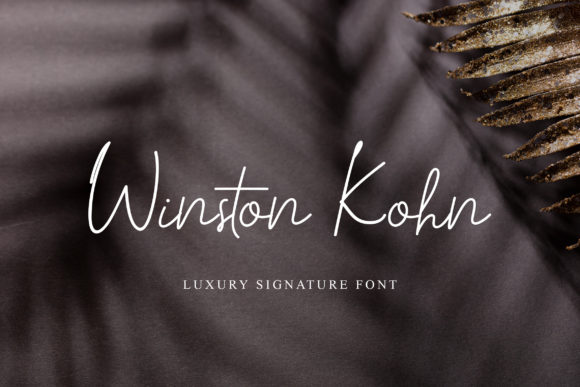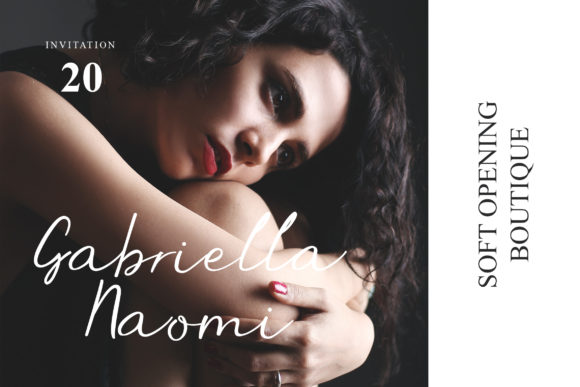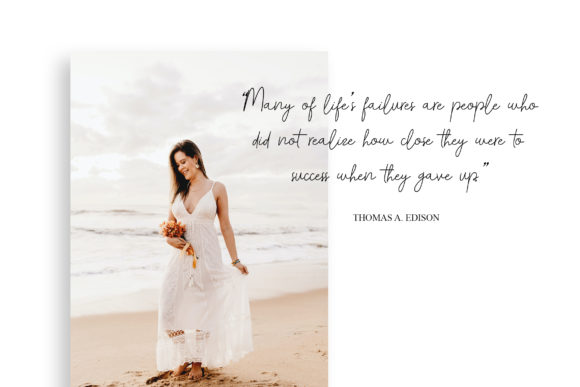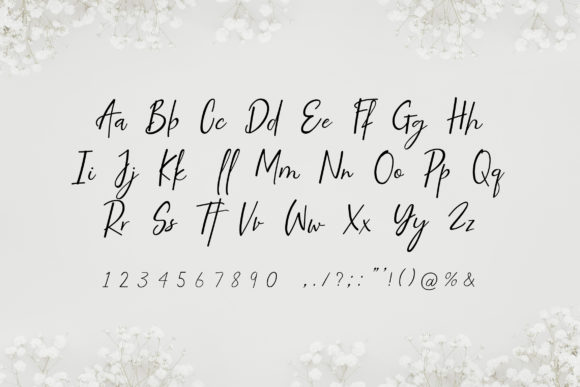
About Winston Kohn Font
Winston Kohn is a thin, simple and dainty script font. Fall in love with its incredibly versatile style and use it to create gorgeous wedding invitations, beautiful stationary art, eye-catching social media posts, and much more!